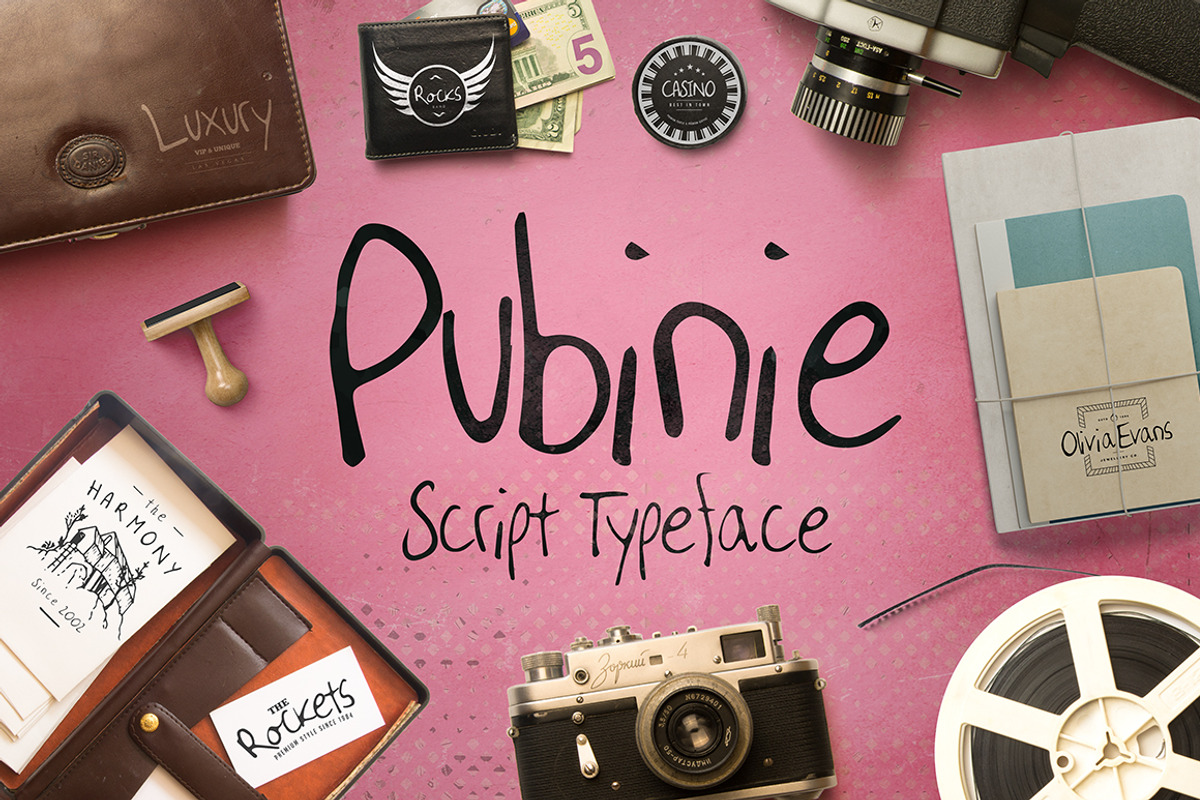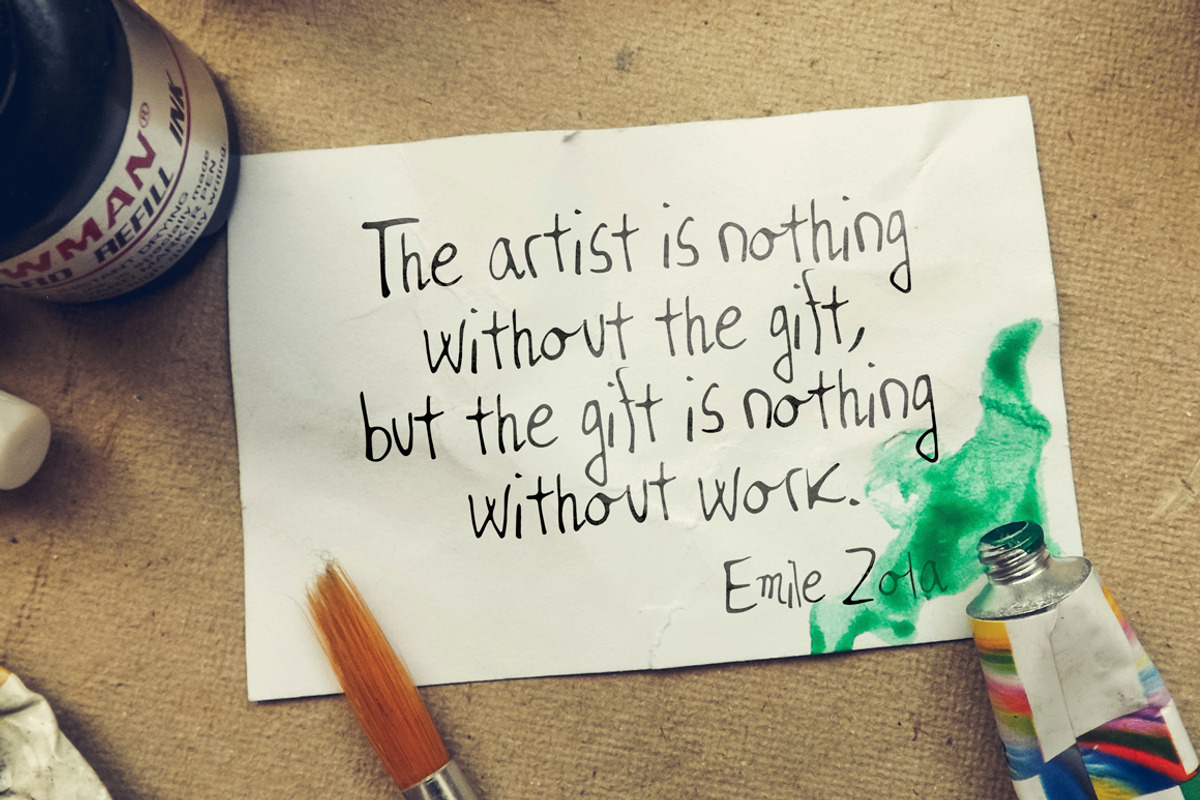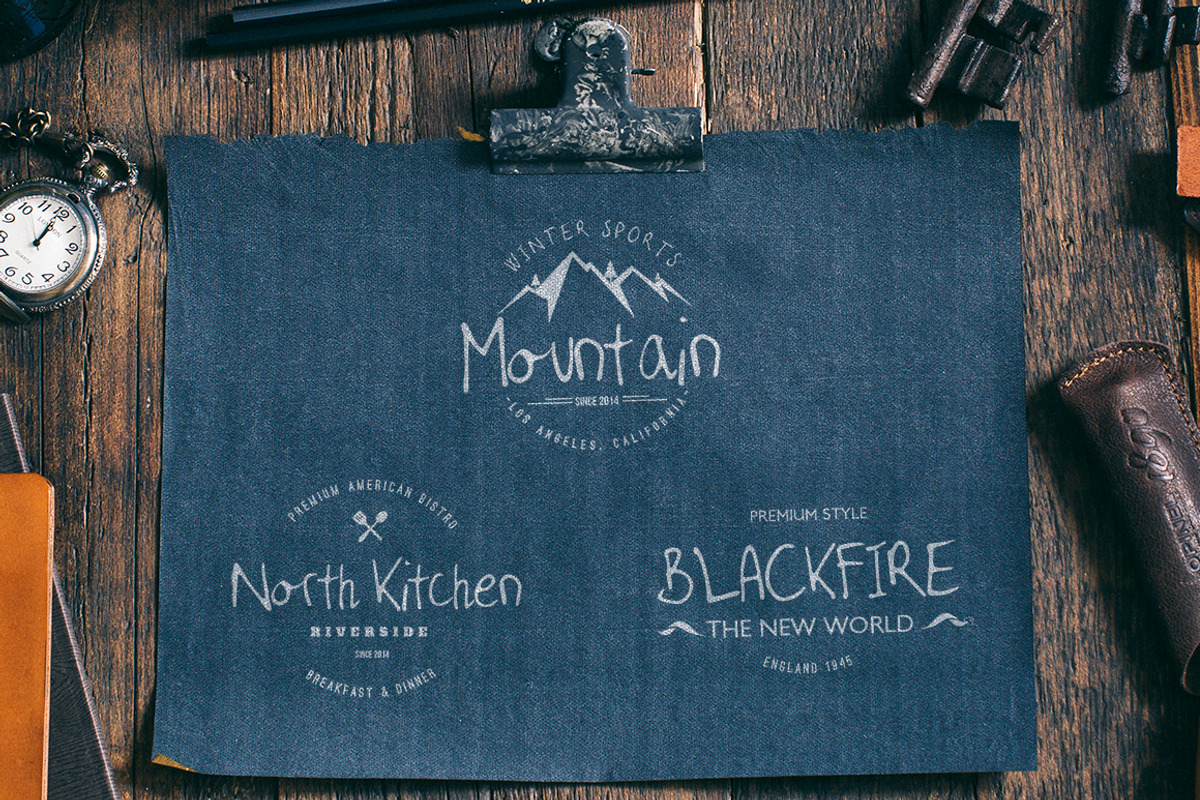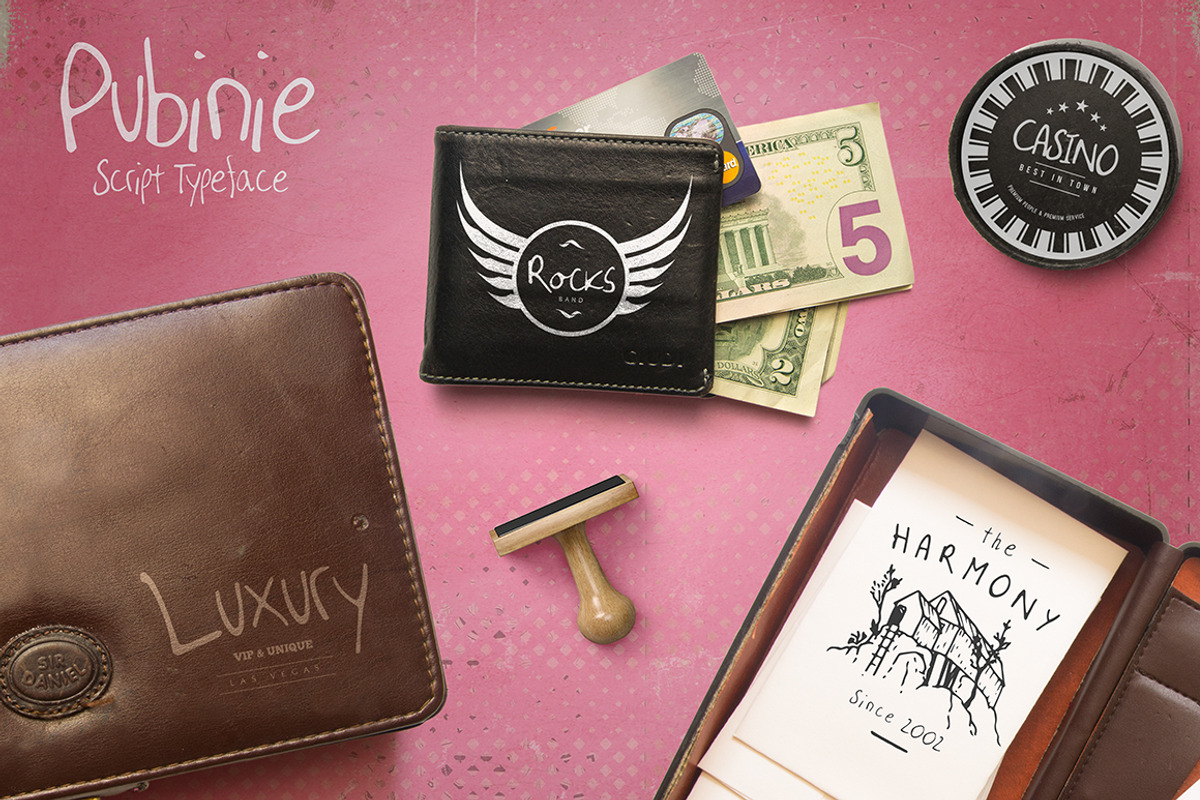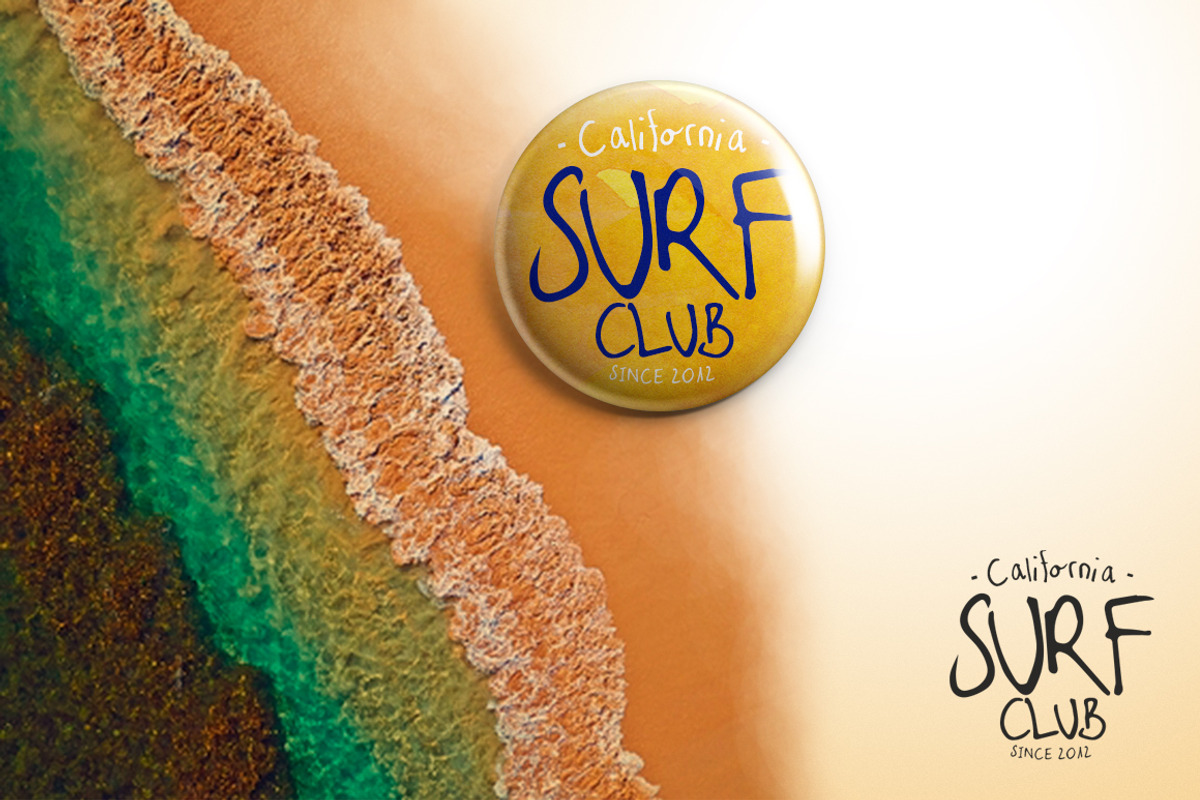
Pubinie Script Typeface
Pubinie Script Typeface by SmartDesigns is a font selected for branding, posters, packaging, typography.
Pubinie Script Typeface by SmartDesigns fits naturally into Branding, posters, packaging, typography.